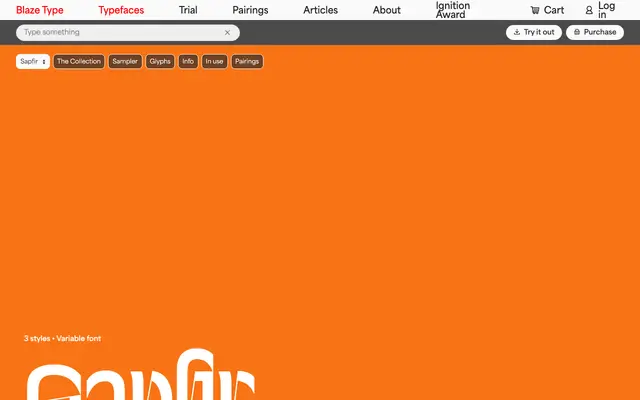
Sapfir
A chiselled display face by Valerio Monopoli that fuses the rhythmic patterning of blackletter with the minimal forms of Roger Excoffon's Antique Olive, available in three optical-size cuts.
Named after the Ukrainian word for sapphire, Sapfir takes its structural logic from gemstone faceting: sliced construction produces converging lines that collapse into ligatures and generate a dense, refractive texture on the page. Three families, Caption, TITL 50 and TITL 100, address small decorative use through to large-scale title setting. The hybridisation of blackletter rhythm with Antique Olive's blunt, confident forms gives it a voice quite distinct from either source.
Sapfir blends blackletter rhythmic patterning with the minimal shapes of Antique Olive, producing a chiselled display face that sits between those two traditions rather than squarely in either.